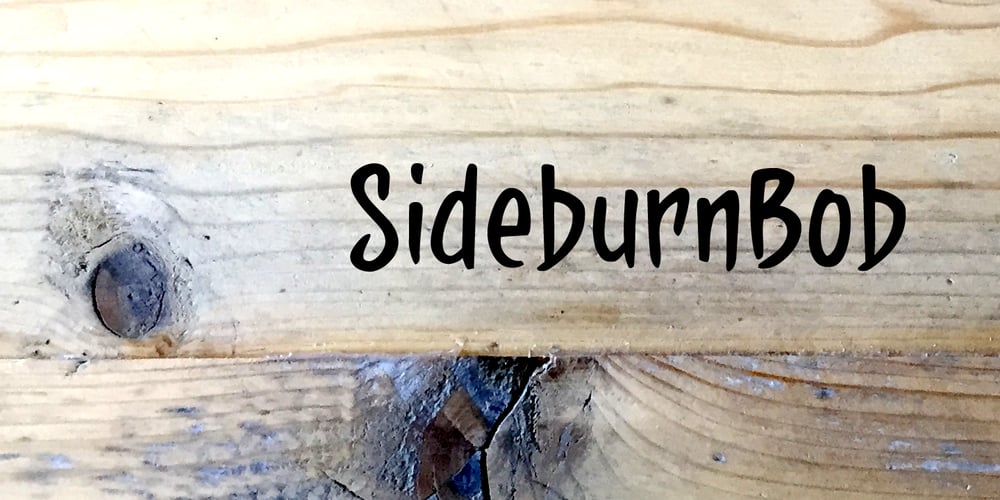
SideburnBob
SideburnBob font
SideburnBob Font Family was designed by Jeroen “Joebob” van der Ham and published by JOEBOB graphics. SideburnBob contains 1 styles and family package options. A handwritten font created with a 0.5 – 1 mm felt tip pen that works great with illustrations and comics. It seems a bit creepy because of the strokes getting smaller at the bottom.